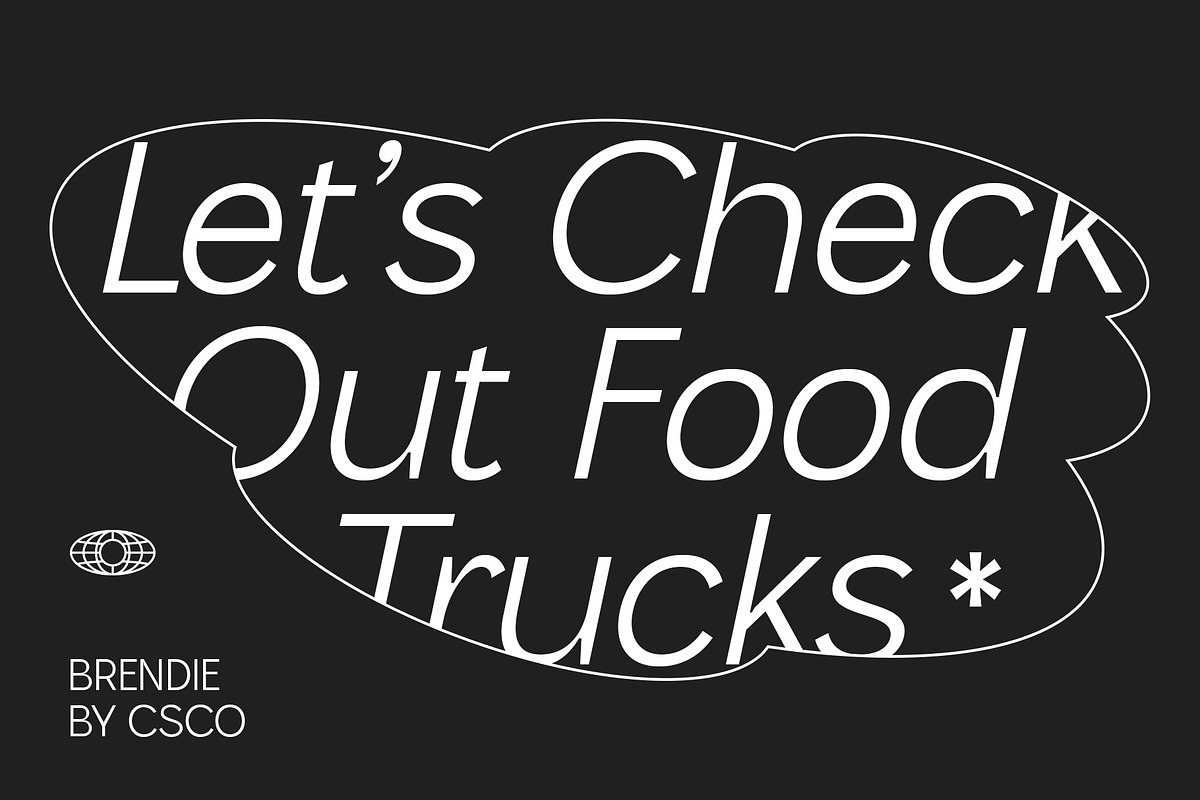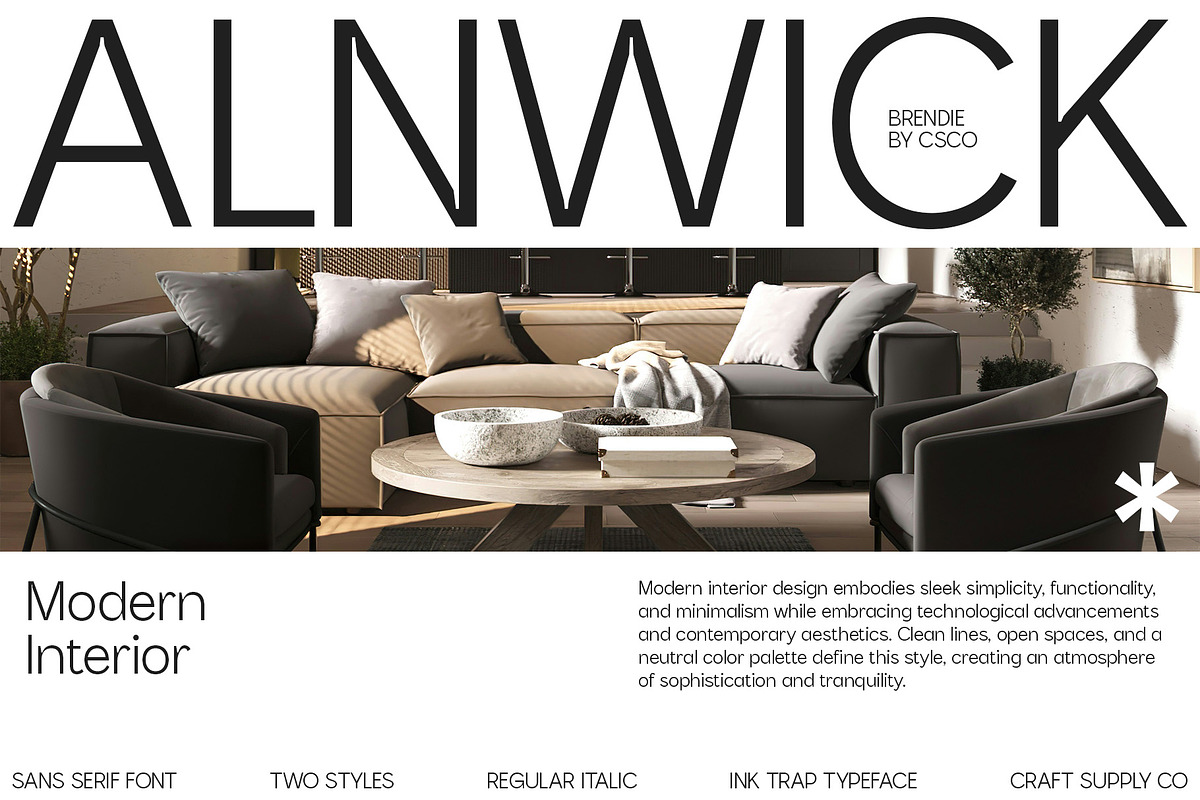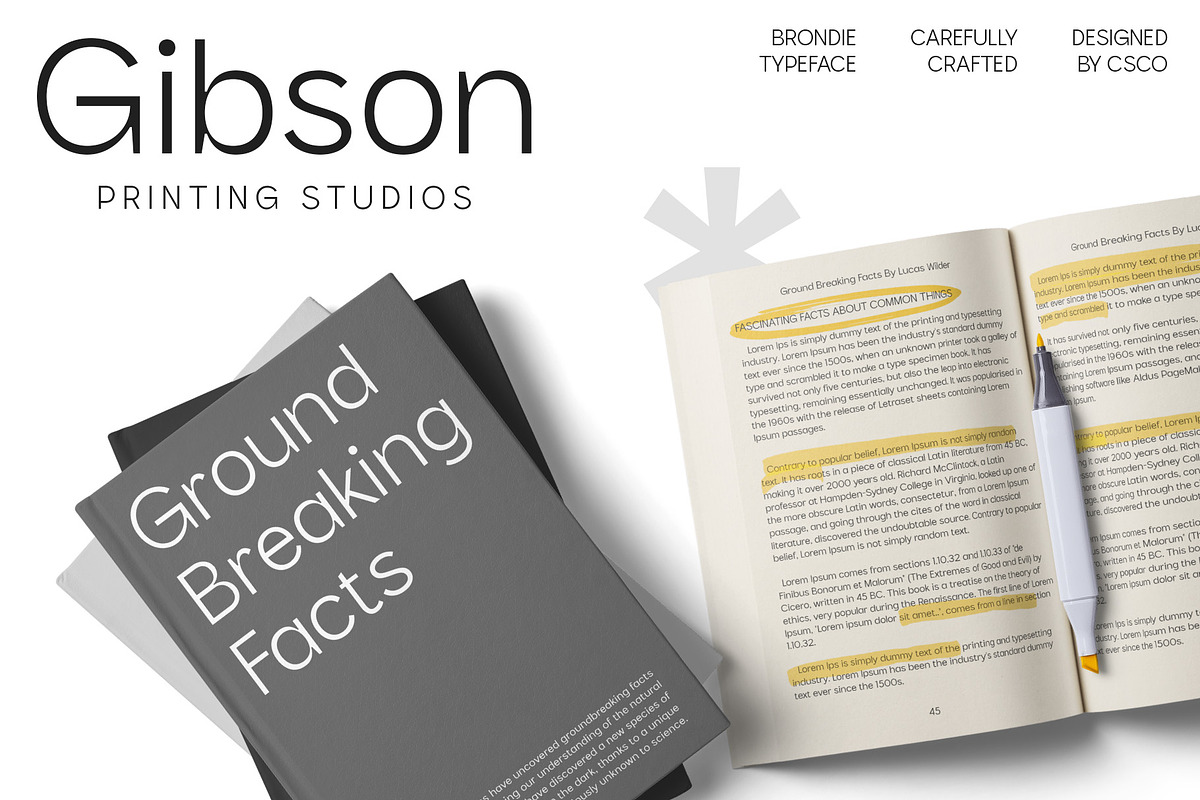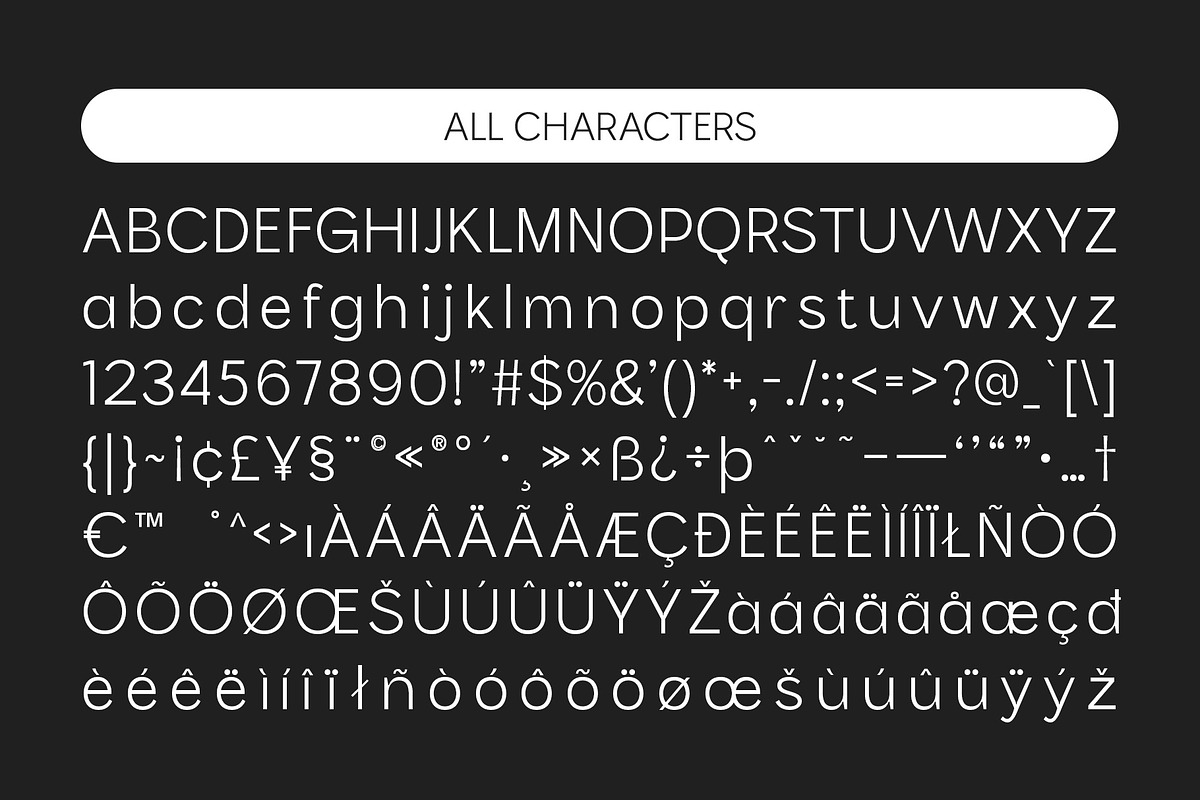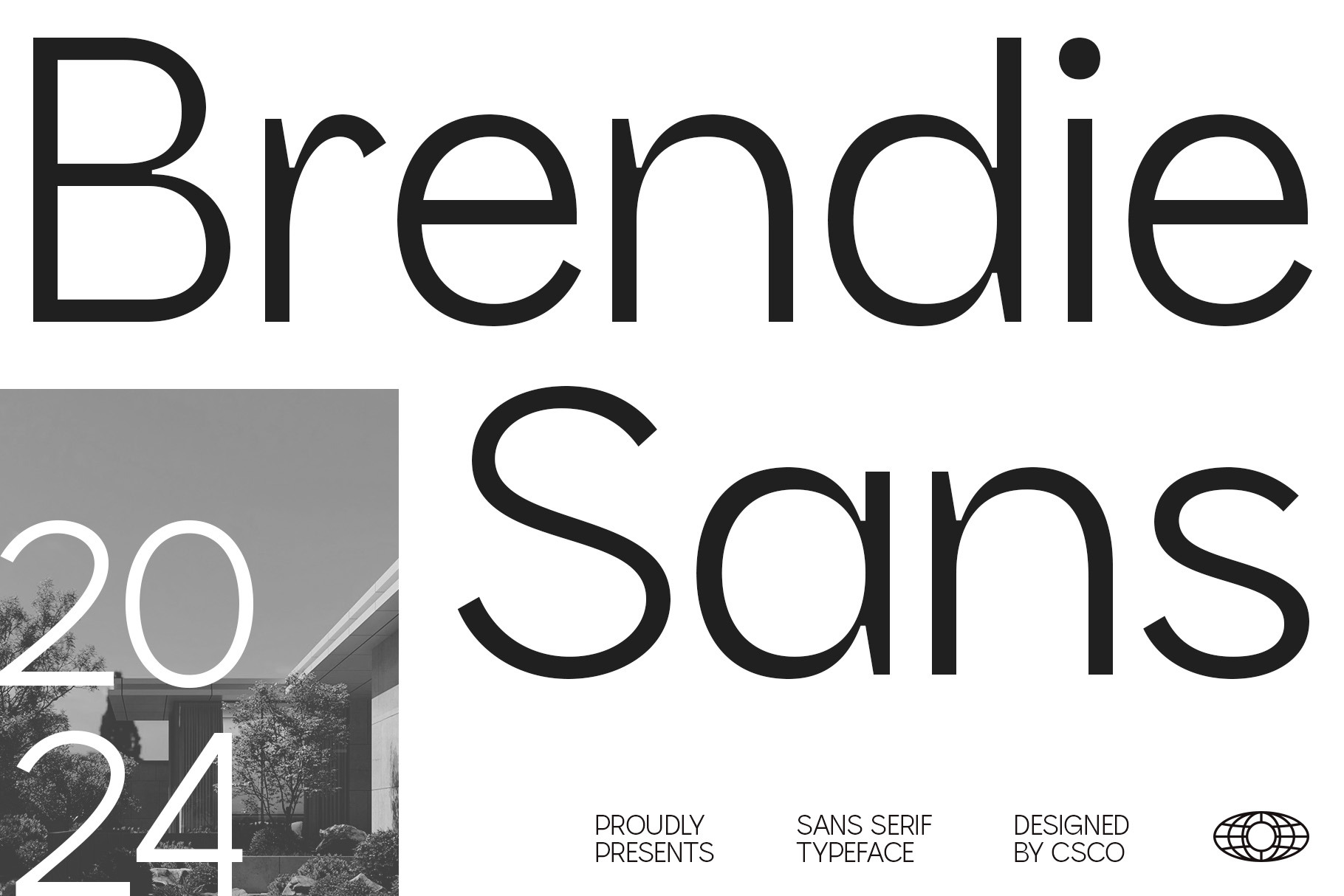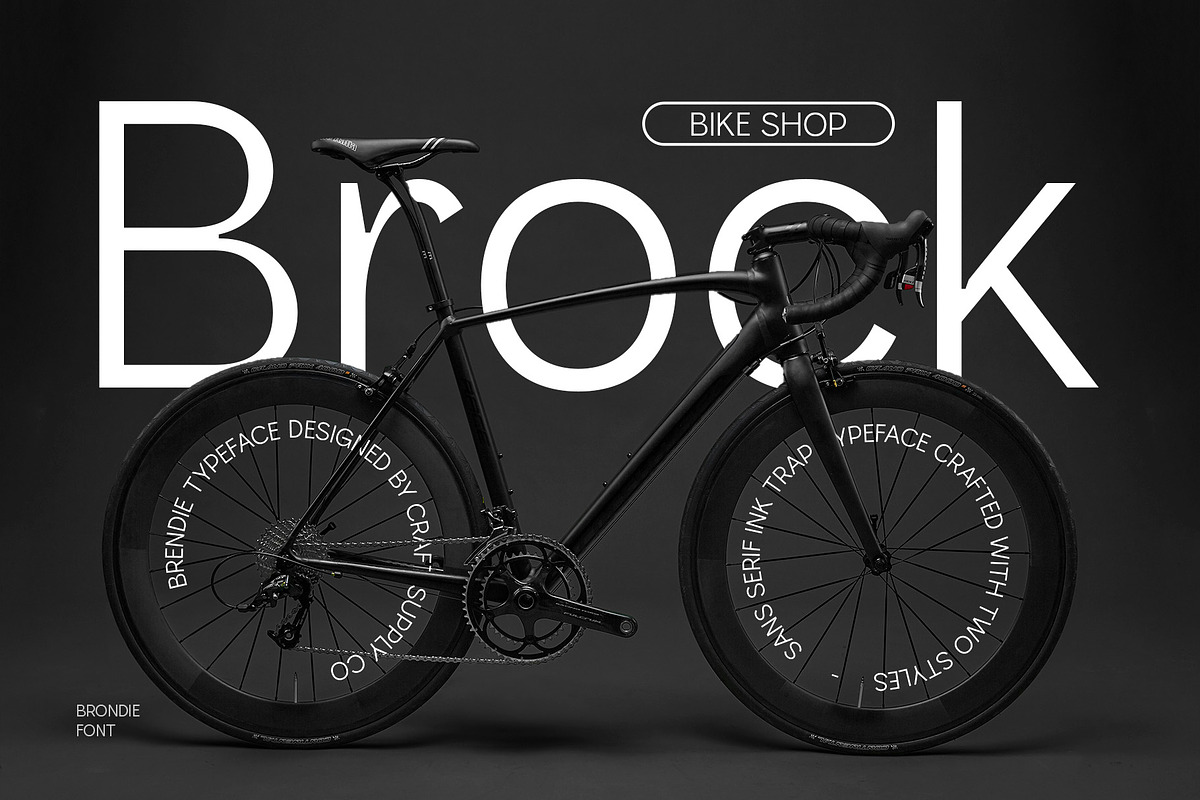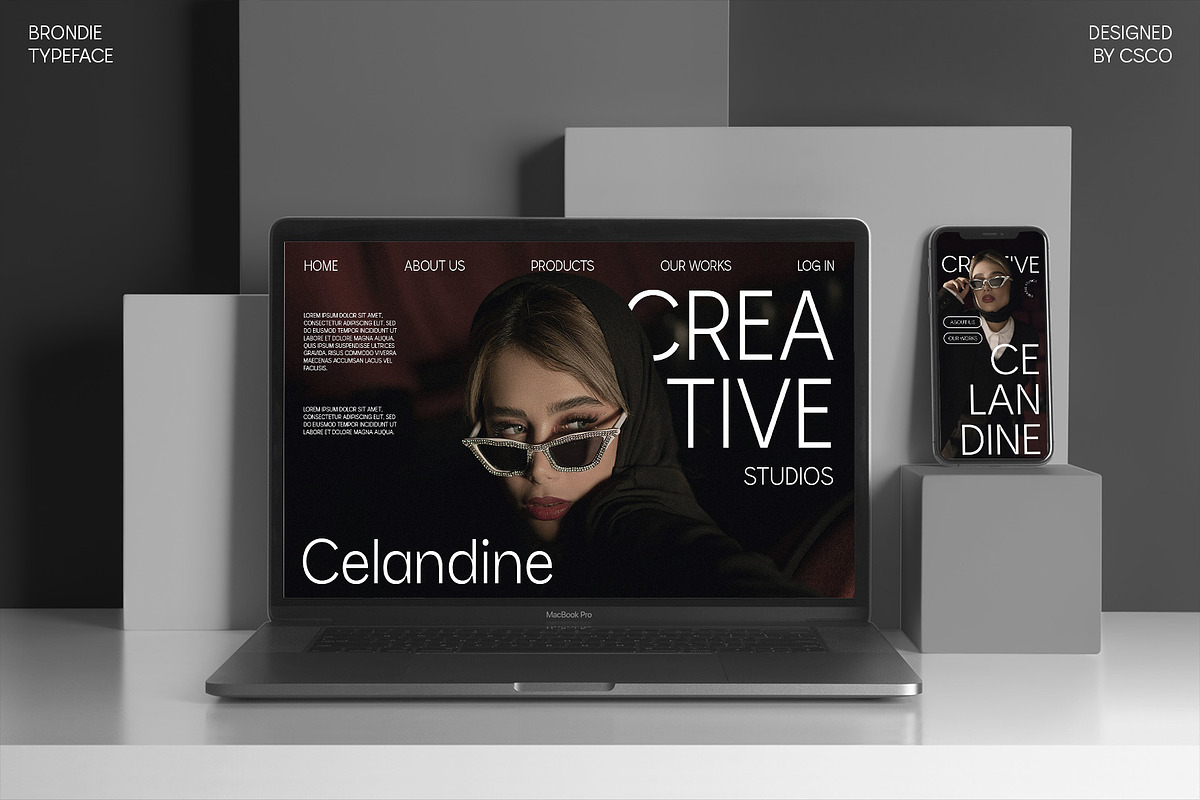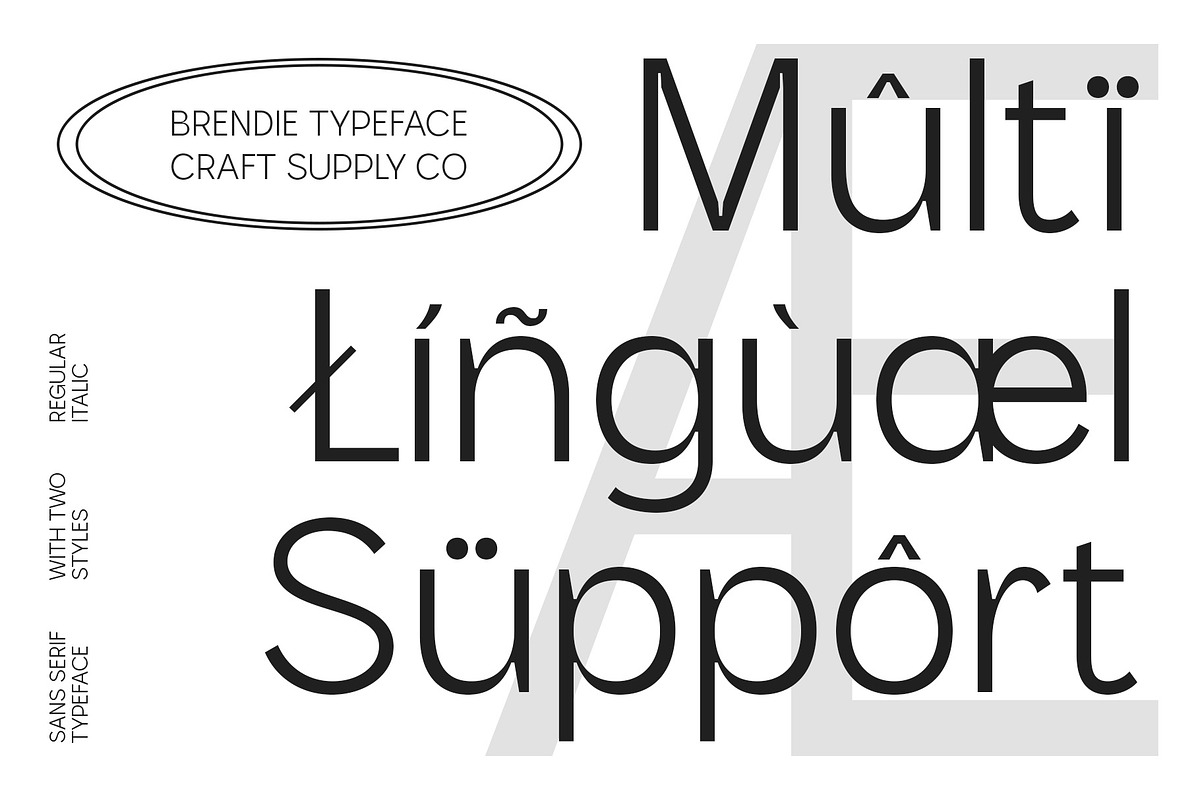
Brendie – Modern Font
Brendie – Modern Font: Modern Sans Serif Font for Professional Use
Clean and Professional Design
Brendie is a modern sans serif font characterized by its clean and professional shapes. This font is ideal for corporate use, providing a sleek and contemporary look to your designs.
Perfect for Corporate Branding
Whether you’re designing logos, websites, or promotional materials, Brendie ensures a professional appearance. Its modern style makes it a solid choice for corporate branding, offering clarity and elegance.
Versatile and Adaptable
Brendie adapts well to various design contexts, from digital media to print materials. Its clean lines and minimalist design make it suitable for a wide range of projects, ensuring consistency and professionalism.
Enhance Your Corporate Image
Utilize Brendie to elevate your corporate image with its modern and professional aesthetics. This font is perfect for creating a cohesive and polished look across all your branding efforts.
- Brendie Regular
- Brendie Italic